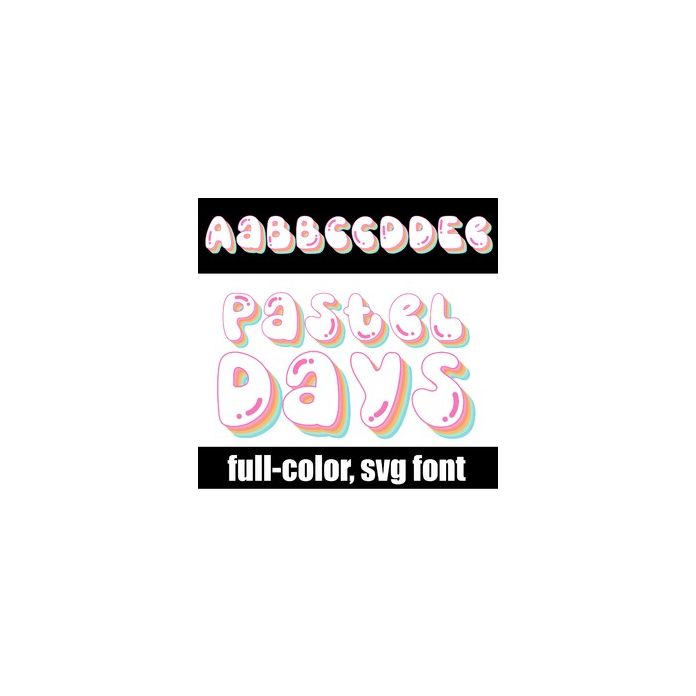
This full-color retro-styled font features white lettering with a rainbow of pastel colors as backgrounds. This font works best for titles, displays, posters and more. Please note color fonts will show as black in non compatible programs. This font type is compatible with Silhouette Studio.